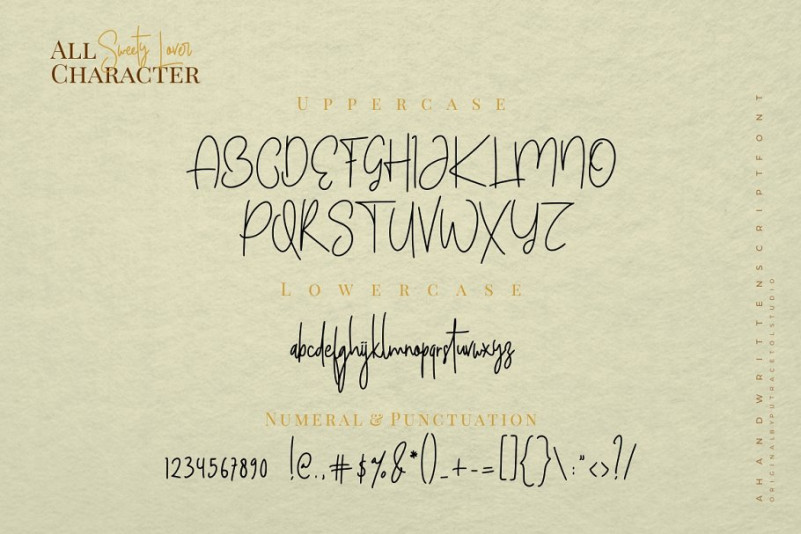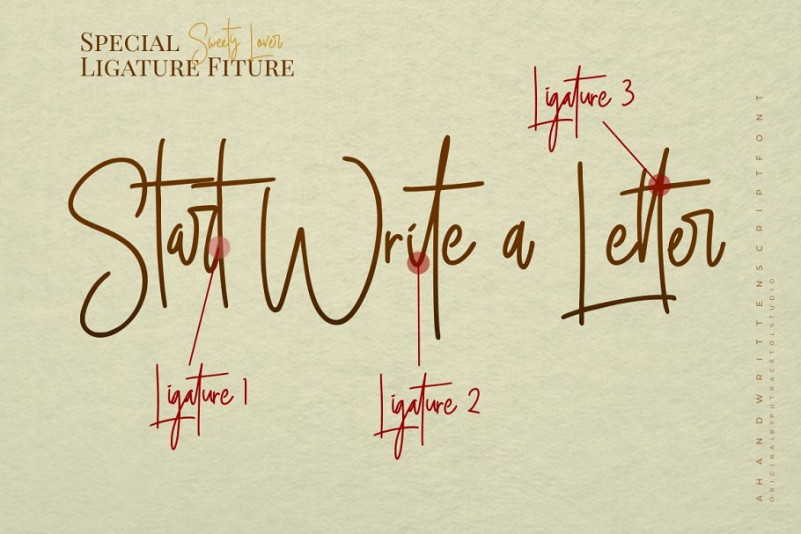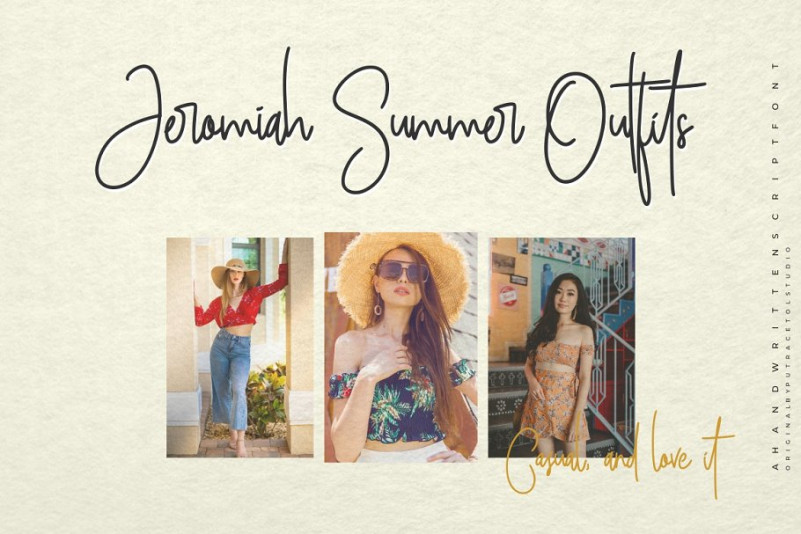
Sweety Lovers Signature Font
Sweety Lovers Font is a font with a continuous handwritten script style. This font is perfect for both professional and branding needs of a product. It is design and shared by PutraCetol Studio. It’s a handwritten signature with natural ,classy and stylish flow. This font help you to create stunning handlettering quickly and easily. Sweety Lovers best uses for signature, heading, cover, branding, invitation, label, poster, logos, quotes, product packaging, header, merchandise, social media & greeting cards and many more.